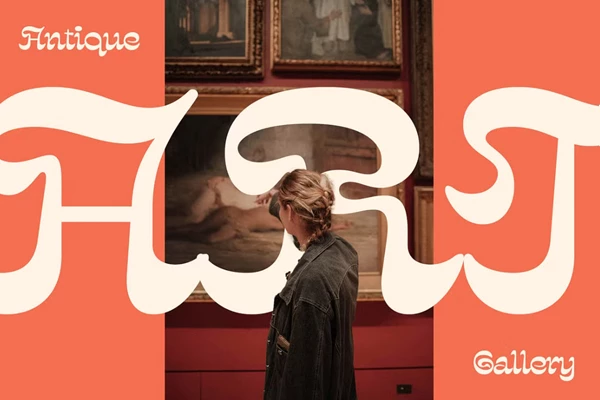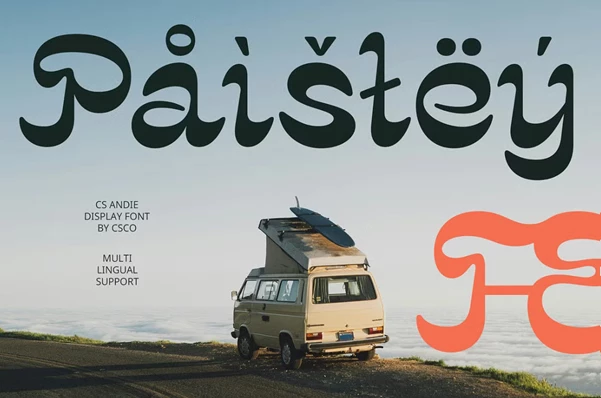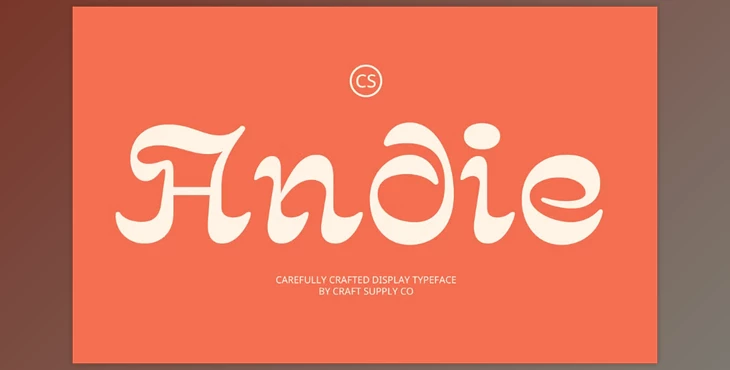
CS Andie – Trippy Font:
The CS Andie font is a trendy display font that possesses psychedelic qualities, featuring a wavy, psychedelic typeface. The letters are wavy and active, providing a seemingly fanciful, almost childlike approach at first sight. However, because the design remains clean and modern, it's easy to read, meaning it's a big, bold font that isn't harsh. This would be perfect for something that challenges conventional ways with a funky, cheerful atmosphere, such as music posters, flyers for raves, zines, and album covers. Use CS Andie for anything from a psychedelic branding piece to a loud editorial page to catch attention with an active and engaged feel with a bit of a handmade quality to it.
Some great features of CS Andie – Trippy Font:
- Uppercase and lowercase characters
- Numerals and Punctuation (OpenType Standard)
- Accents (Supports Multilingual Characters)
"CS Andie – Trippy Font" Samples: